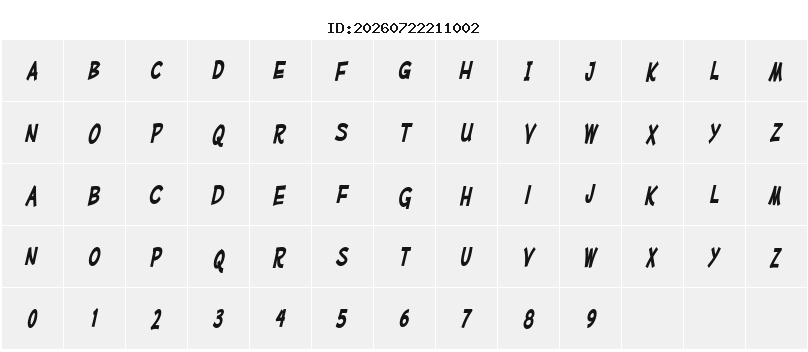
Mufferaw Cnd Preview
• Font Name: Mufferaw Cnd
• Designer: Ray Larabie
About Mufferaw Cnd.ttf
Mufferaw Cnd.ttf is a modern, elegant sans-serif font designed for ultimate readability and visual harmony. Perfect for branding, headlines, web design, and print materials.